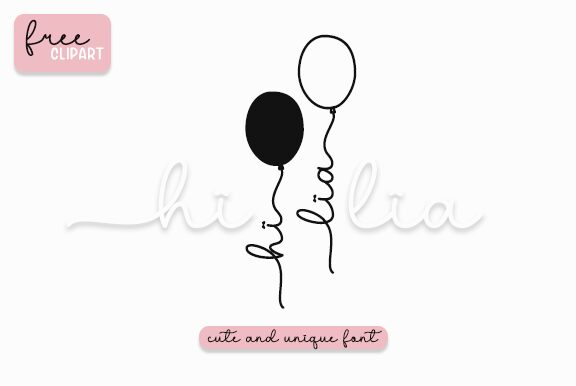
Hi Lia is a light, handwritten font created by Nopianti. Perfect for adding a unique personal touch to your projects, Hi Lia works beautifully for wedding invitations, crafting, logos and more.
Hi Lia
Nopianti